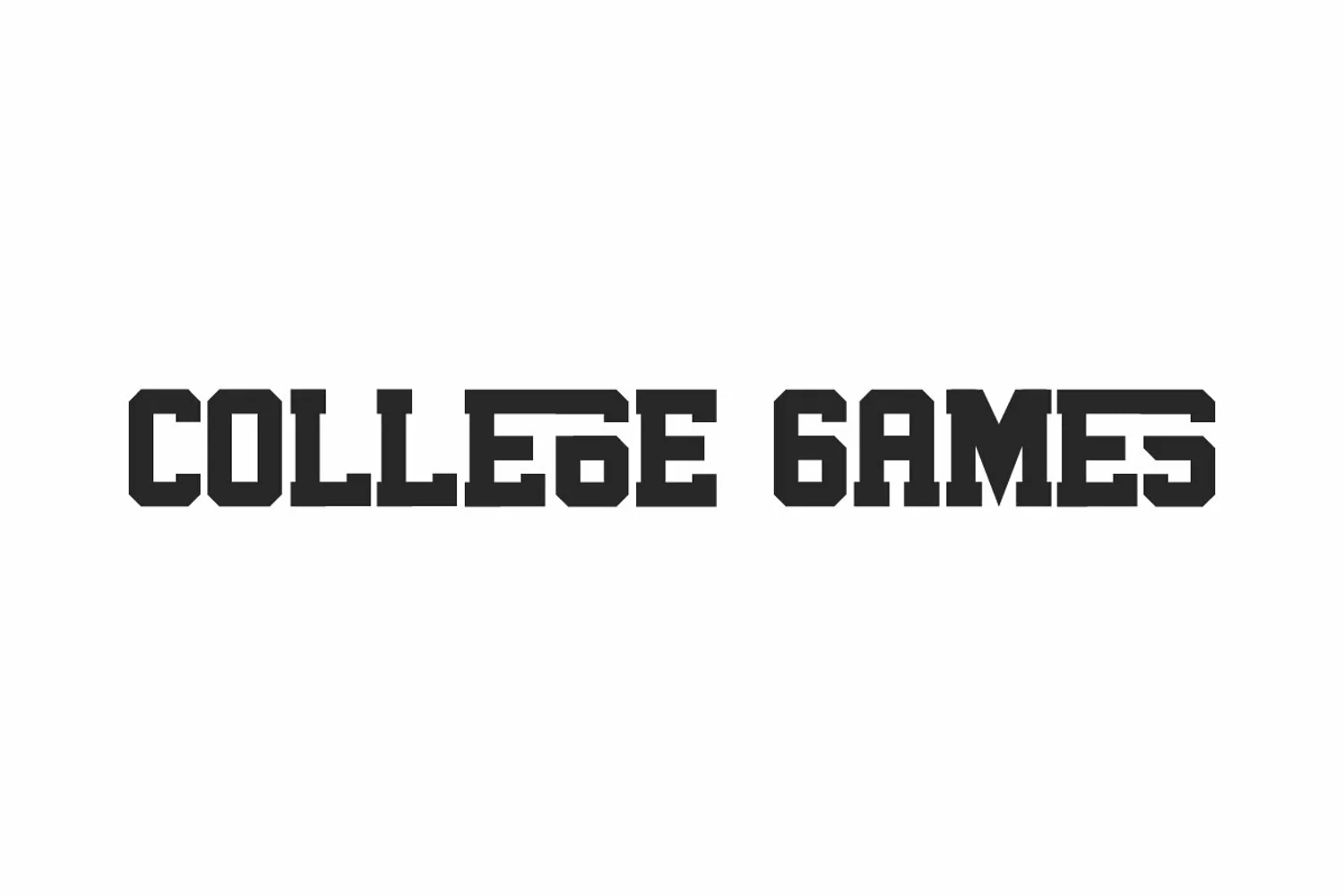
College Games
College Games Serif Font is a serif font family originally designed by NihStudio. It is inspired from the world of sports. On the package you will get :
Handcrafted here in our Studio, Indonesia. College Games Font will be great for any projects including : branding, logo, stationery, business card, signage, flyer, brochure etc. College Games comes great for many business industries : automotive, entertainment and sport, etc